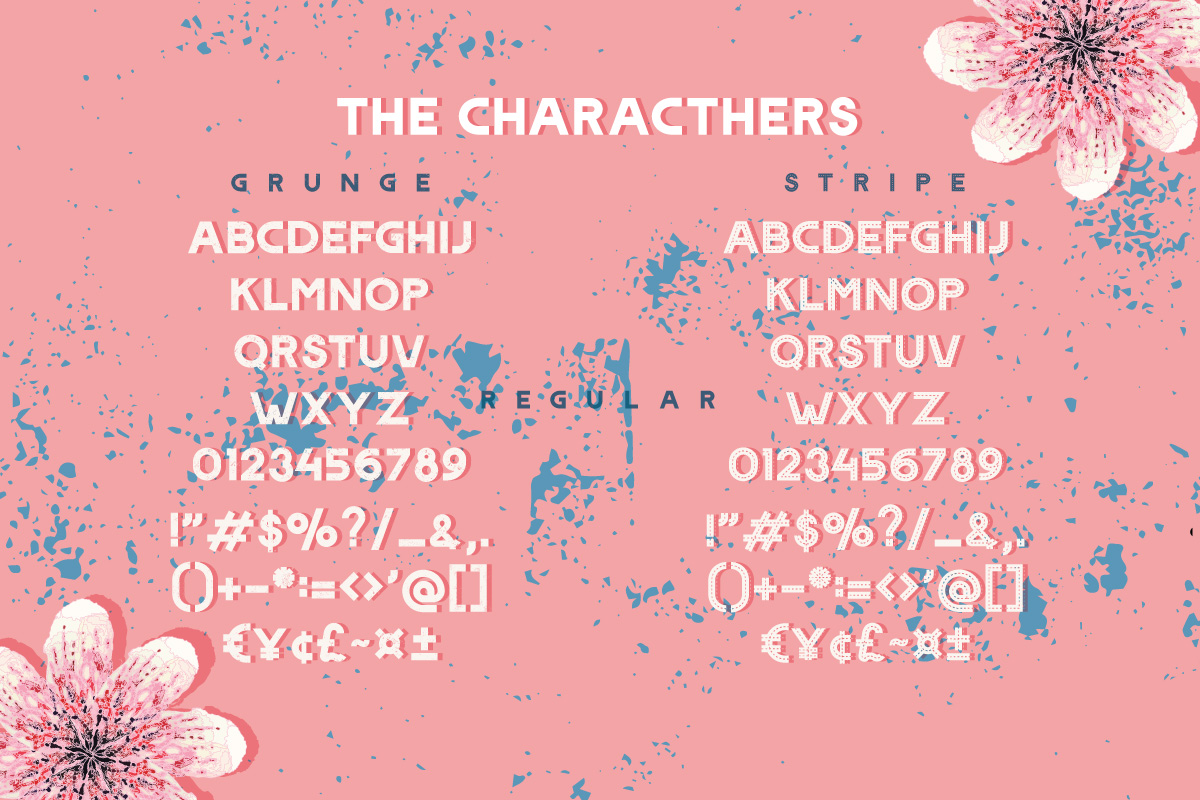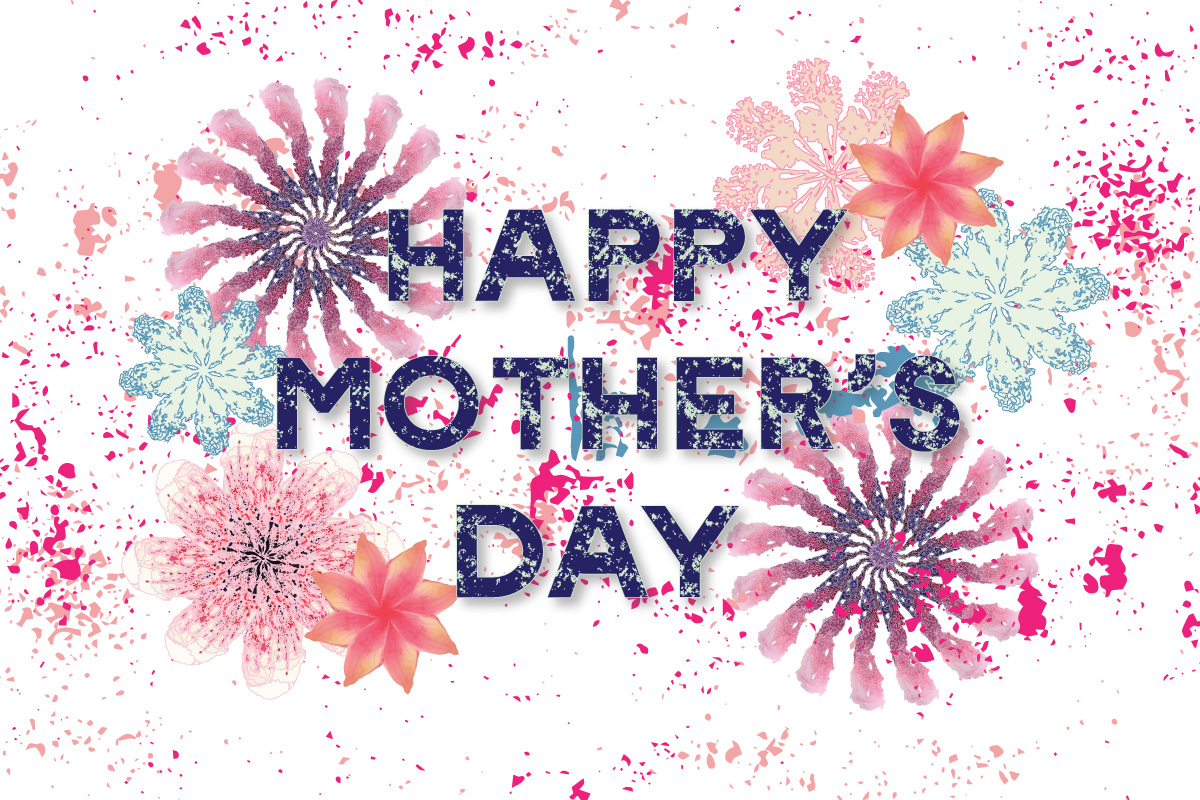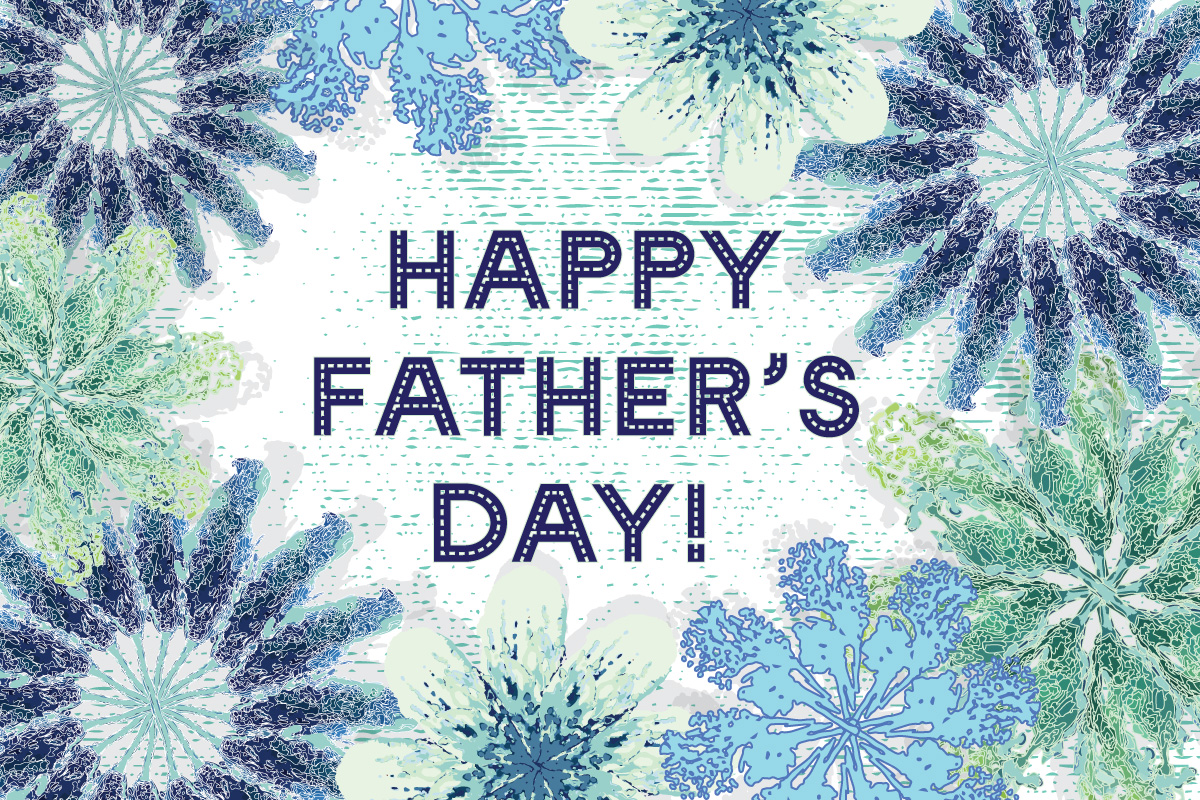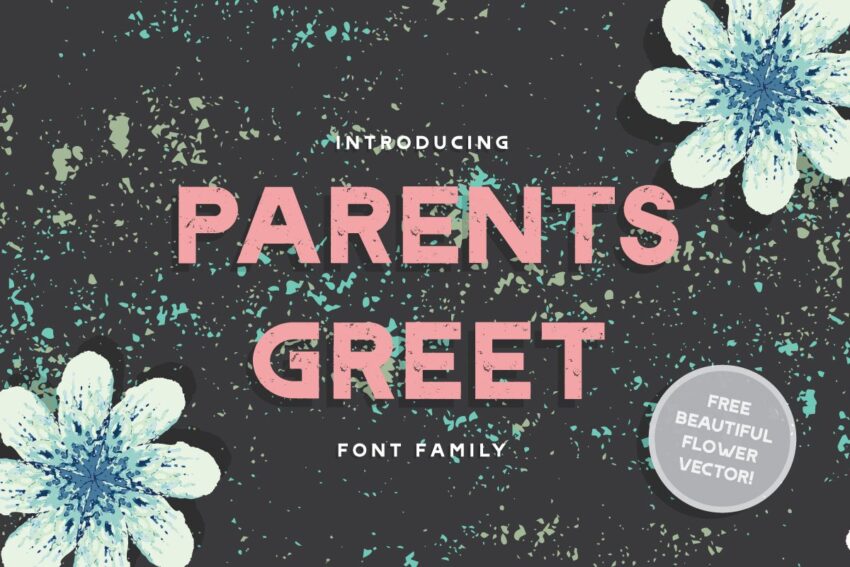
Introduction to Parents Greet Font
Parents greet is a display font that comes in 3 styles: grunge, stripe and regular.
Perfect for headlines, titles, your brand, posters and many more different types of projects You also get beautiful vector flowers to decorate your design.